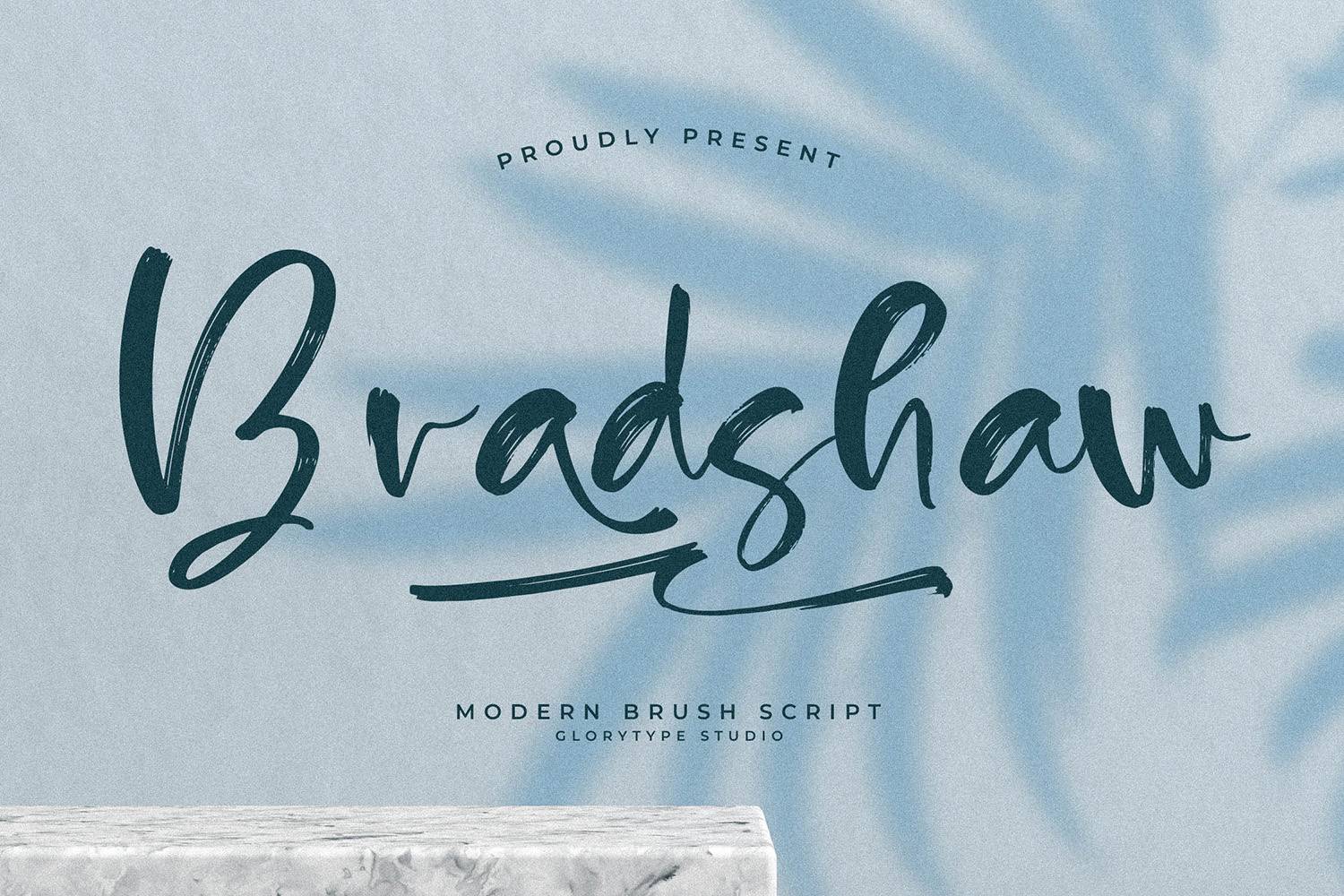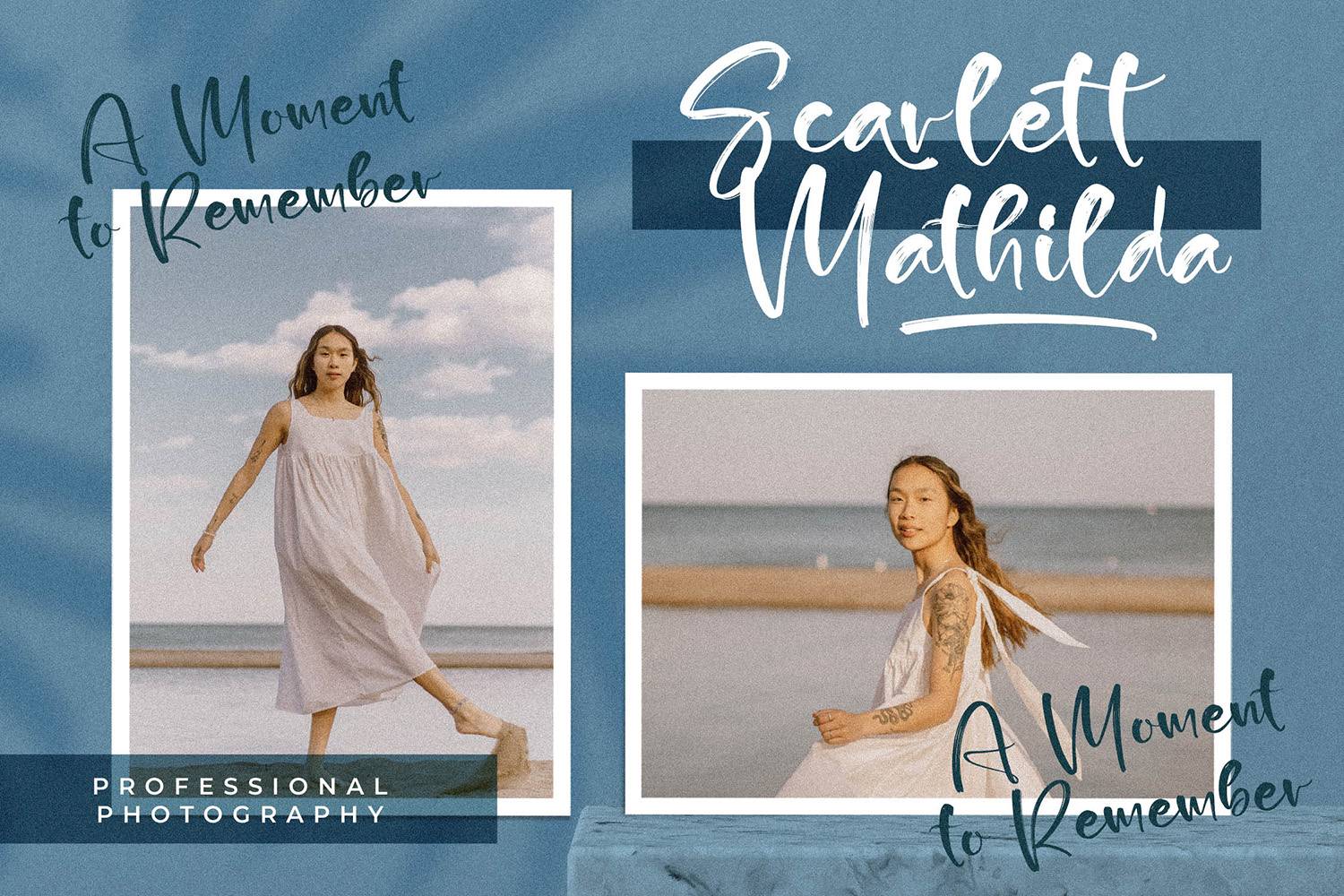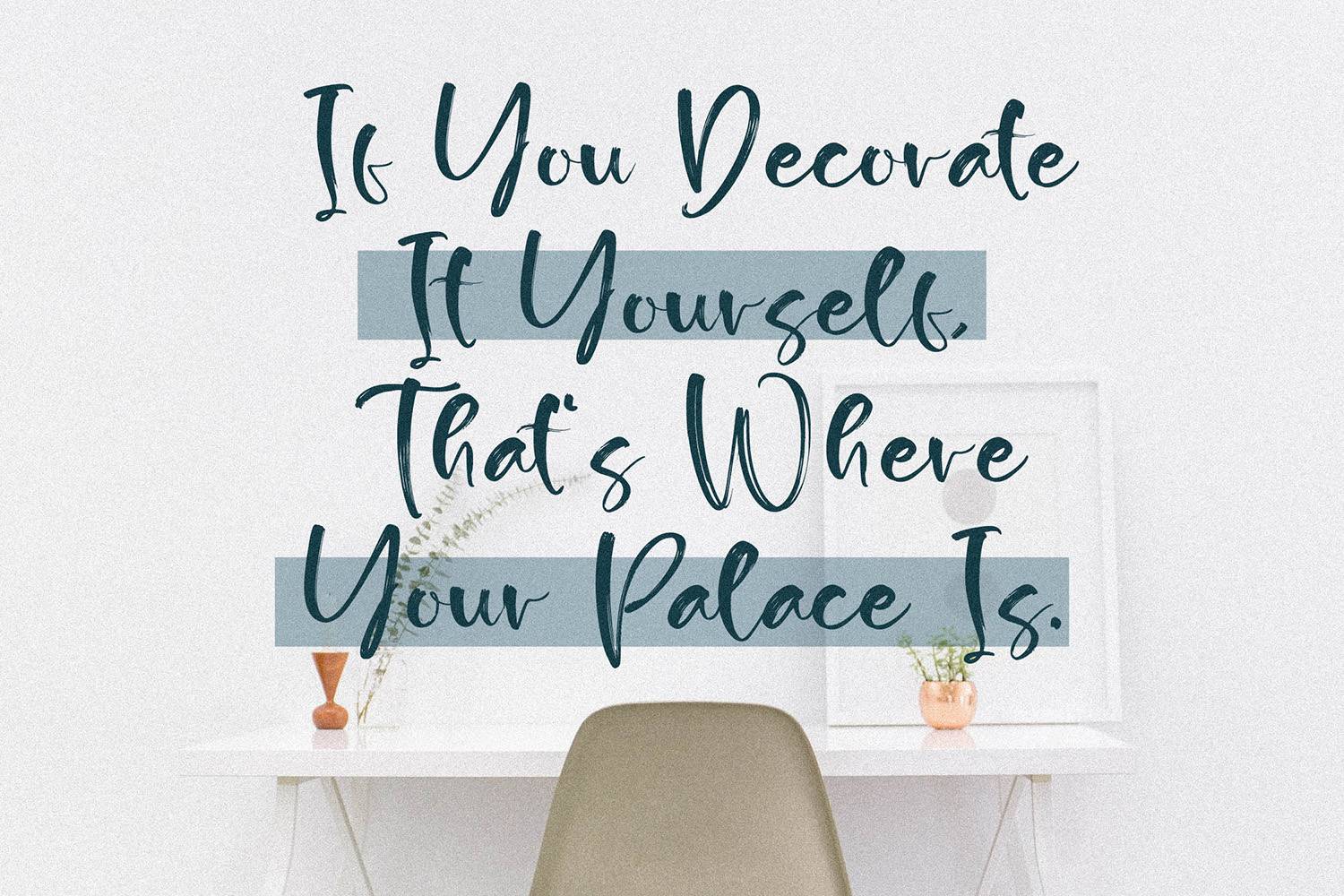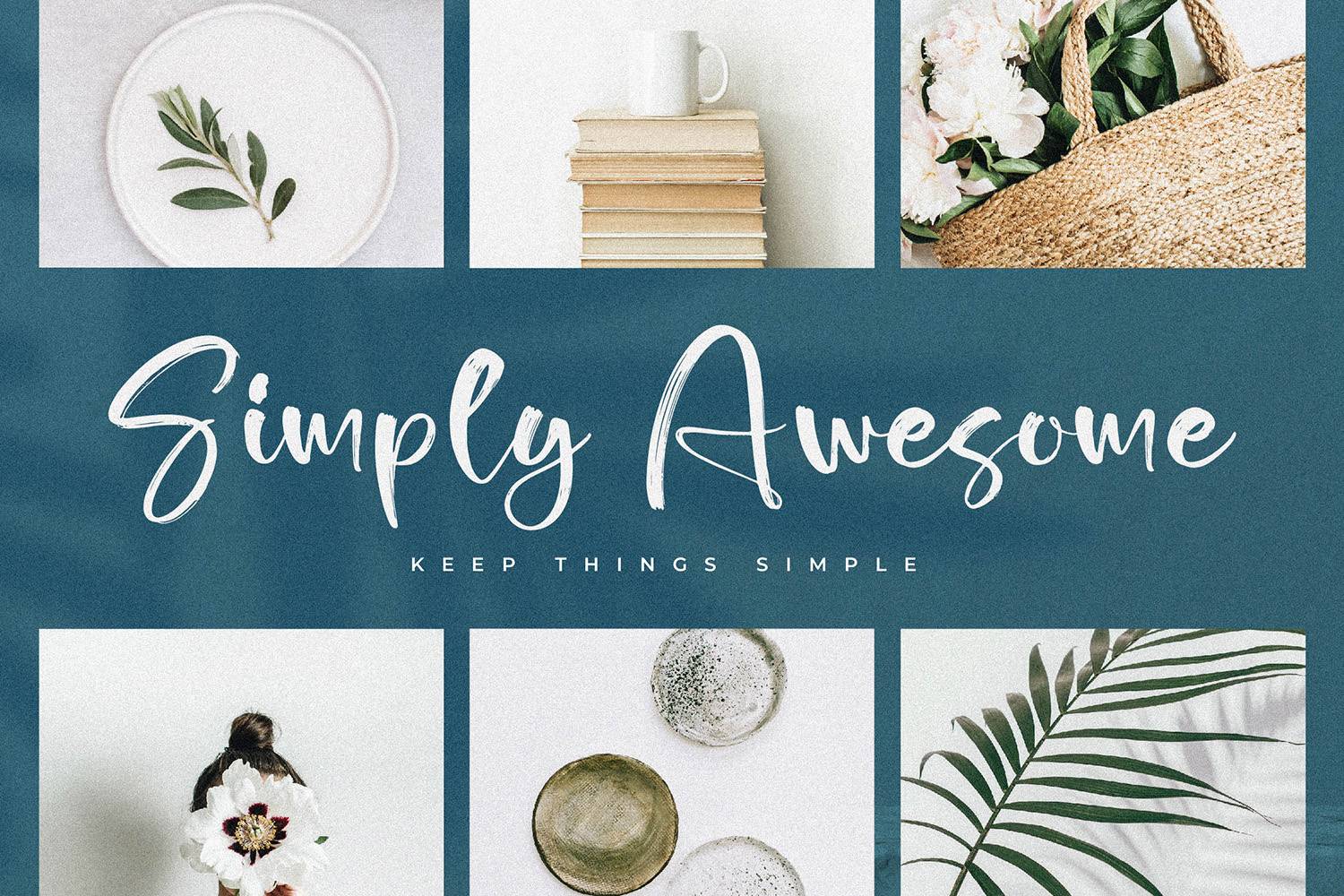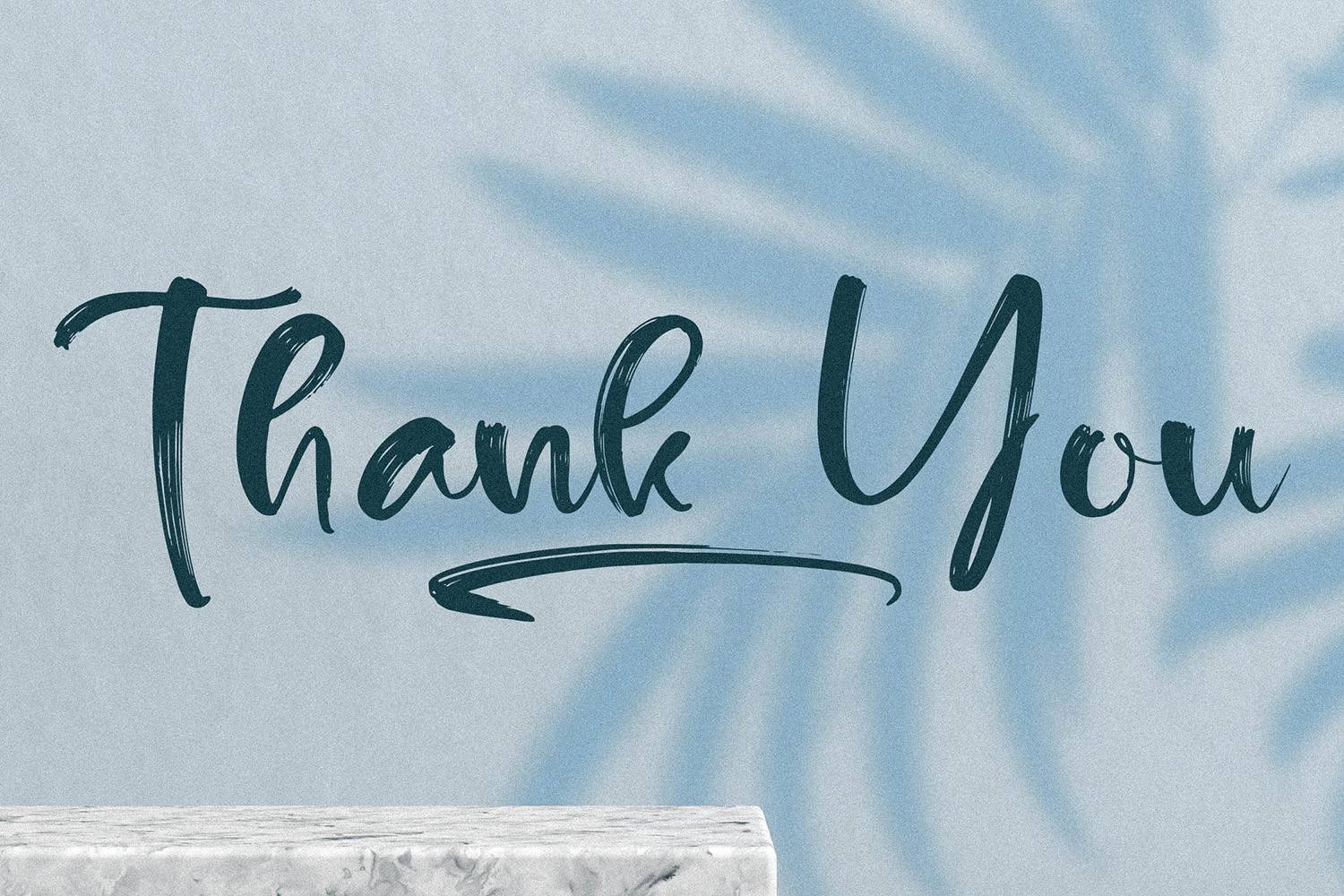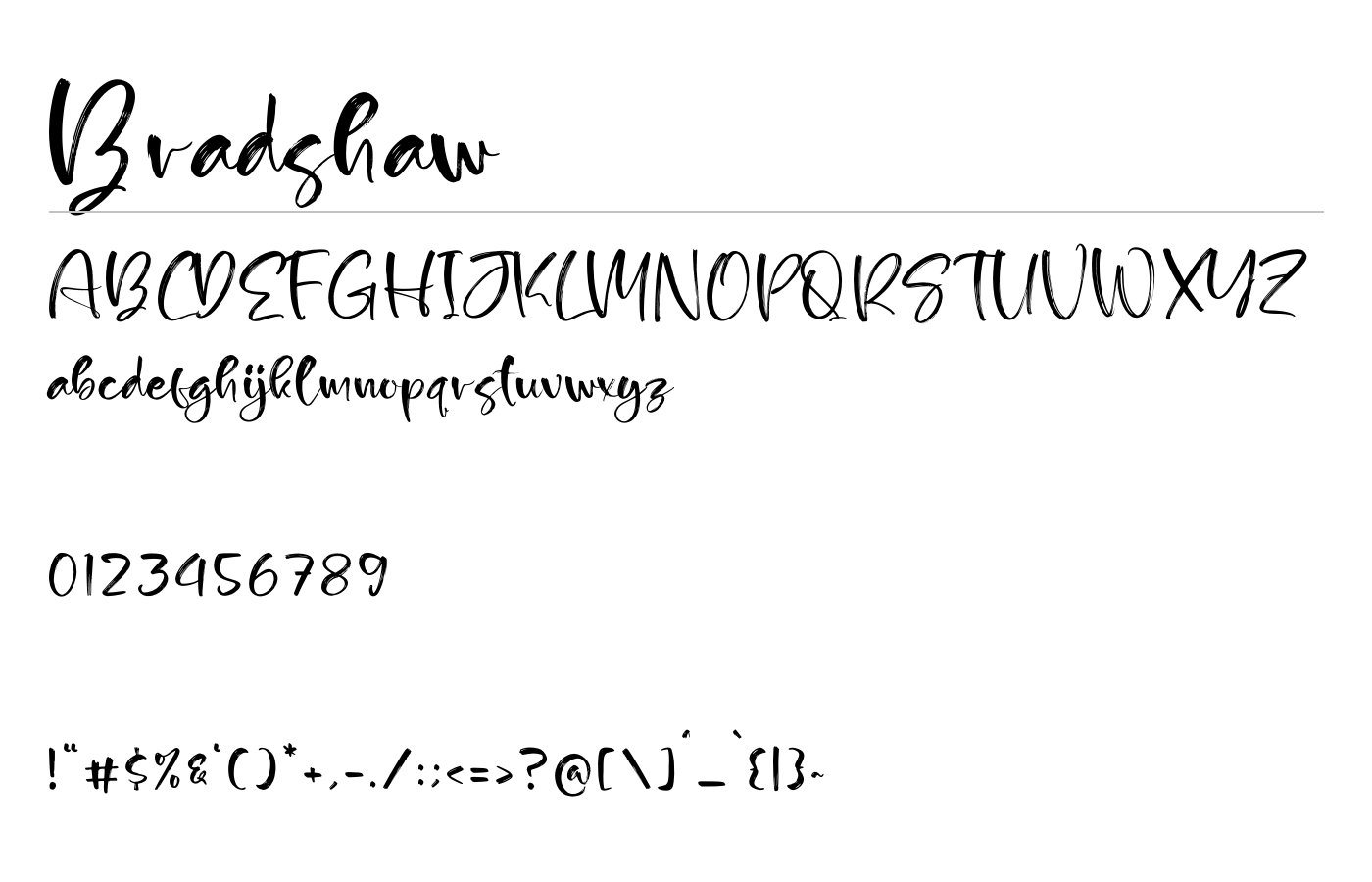
Bradshaw is a lively, hand-drawn script font that combines a casual yet elegant feel through its brushstroke style and varied line thickness. Its informal, flowing letterforms convey warmth and creativity, making it ideal for personal branding, invitations, and playful editorial design where a friendly, artistic touch is desired. This font works best in headlines and logos where its unique character can truly stand out.
Bradshaw Font
About Bradshaw Font